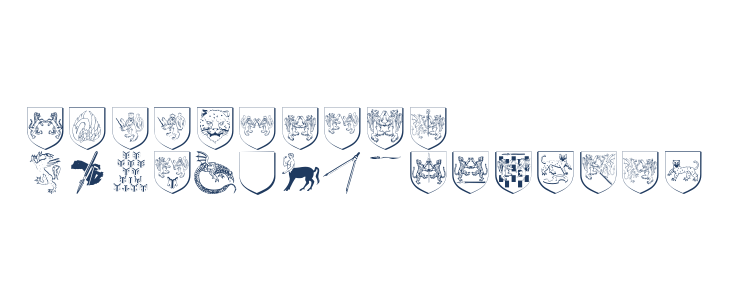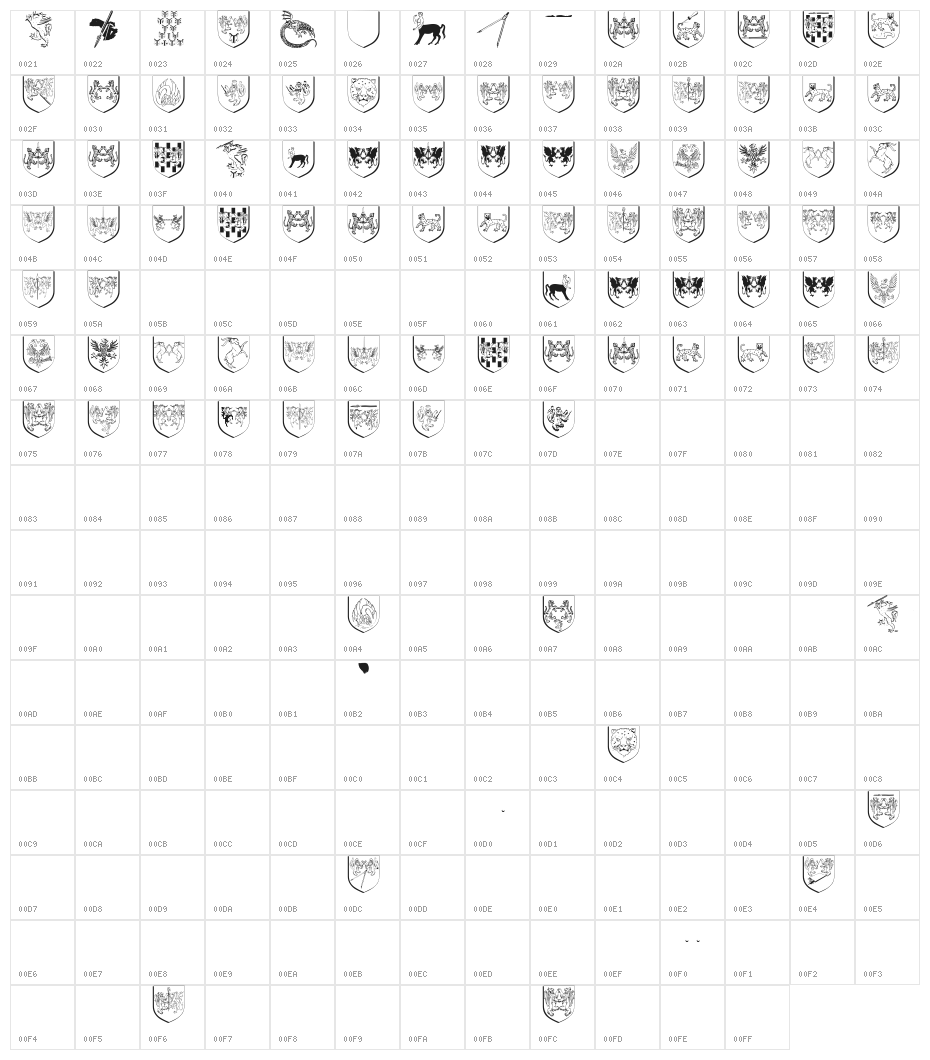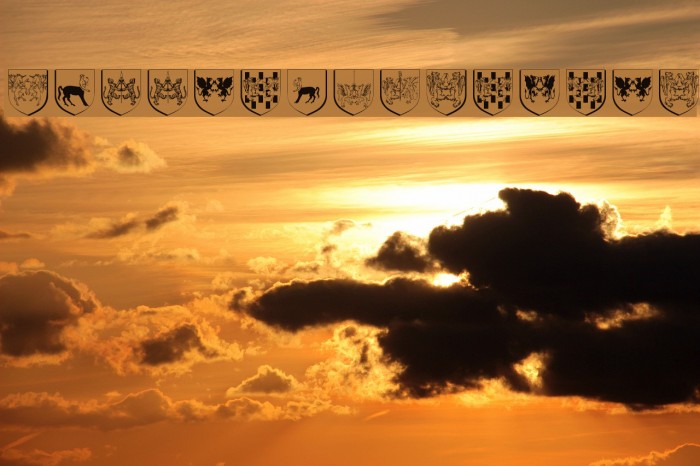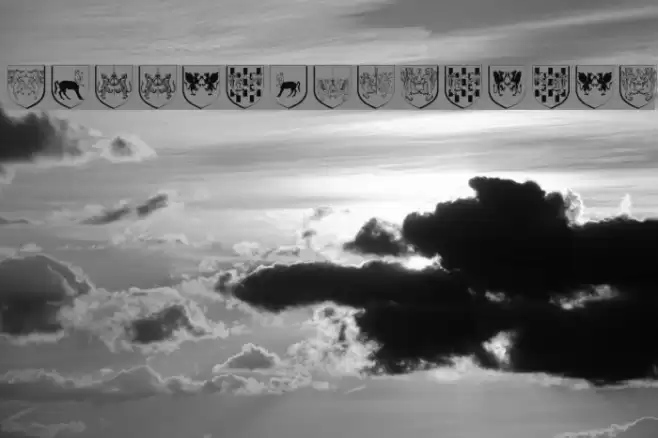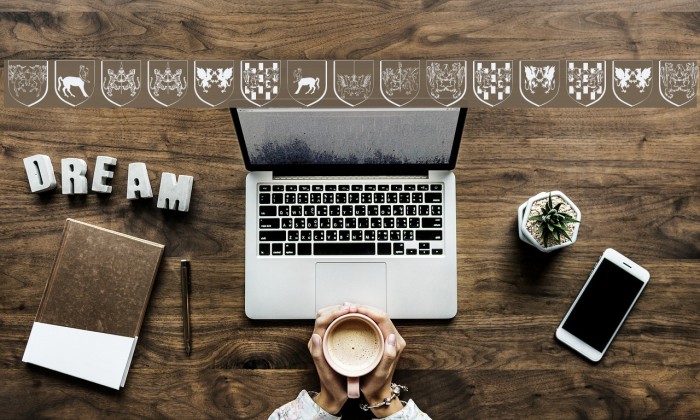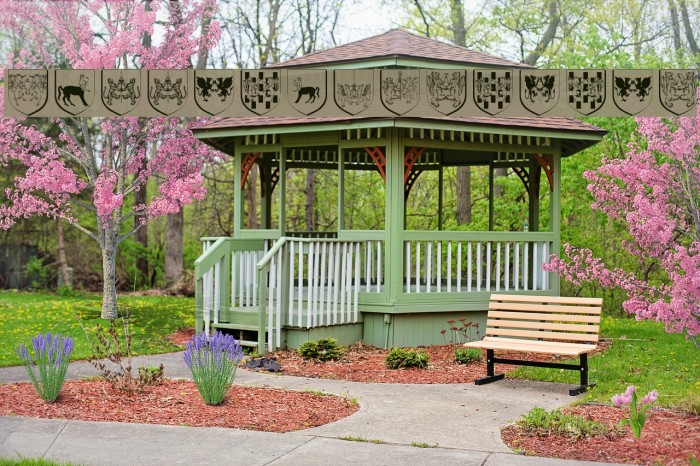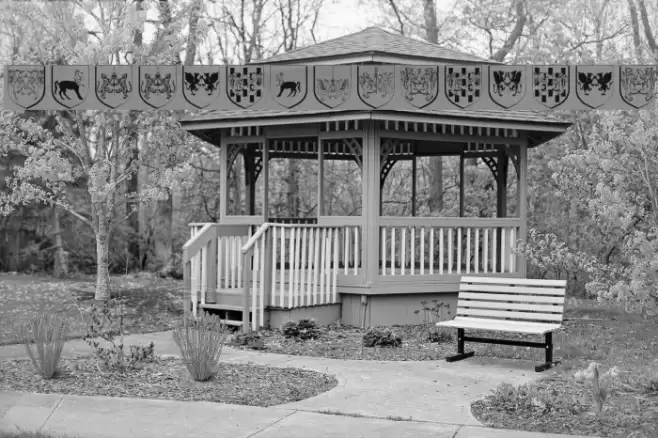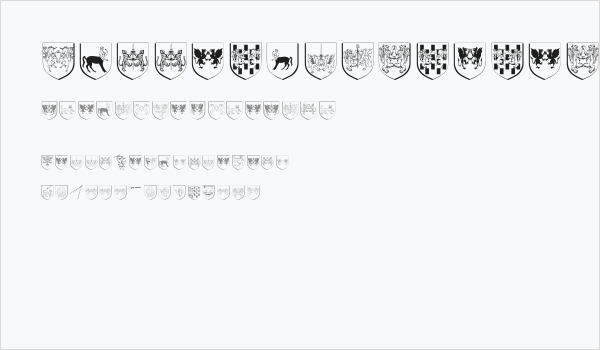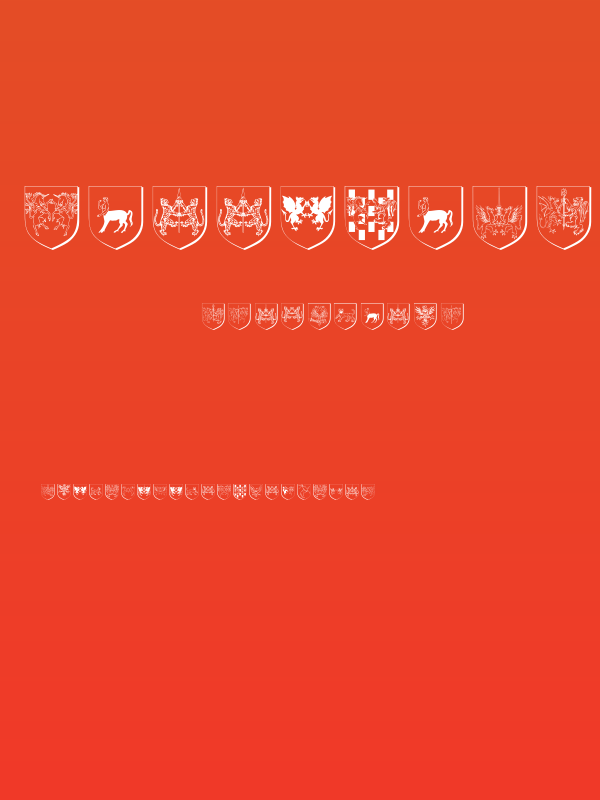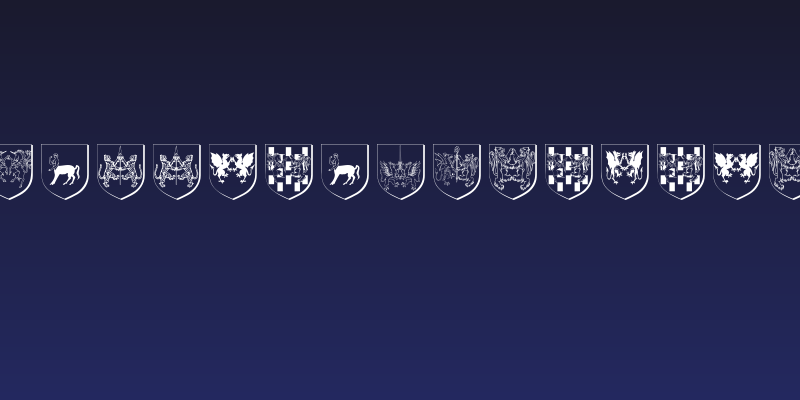
WappenAltUndNeu Font
WappenAltUndNeu Description
A decorative display typeface featuring heraldic shield icons with intricate line art, including animals, mythical creatures, and traditional coat of arms motifs. Each character is represented by a unique shield design, emphasizing historical and medieval themes.
| Overall Style | Decorative, Medieval, Historical |
| Use Case | Logos, Posters, Themed headings, Illustrative purposes |
| Proposed Projects | Historical documents, fantasy games, medieval-themed posters, heraldry guides, book covers, and educational materials. |